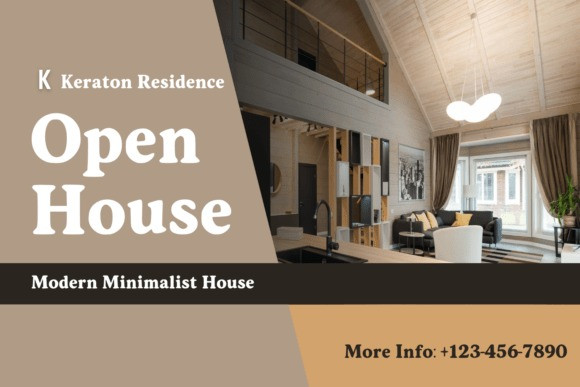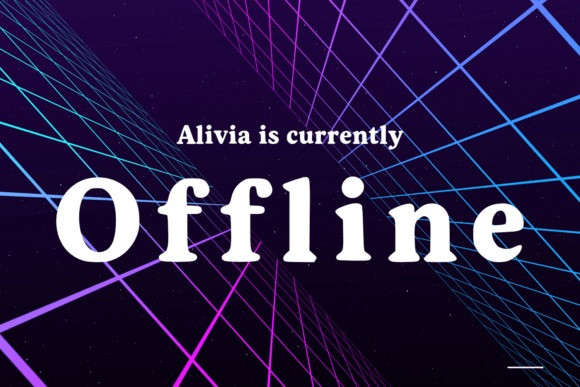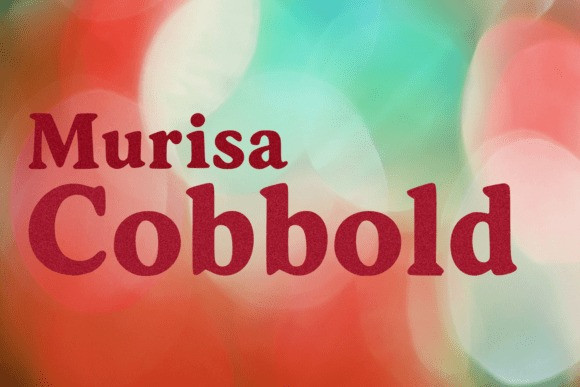
Murisa Cobbold Font
Murisa Cobbold Font, a serif typeface that commands attention without raising its voice. Designed for creators who demand more than beauty—this font delivers presence, precision, and poetic balance in every glyph.
Intelligent Design Each character is sculpted with meticulous care, blending classical proportions with modern finesse. The subtle tension between sharp serifs and graceful curves creates a rhythm that feels both editorial and exclusive.
Multilingual Mastery Murisa Cobbold speaks the language of refinement—across borders. With full support for Eastern European scripts, it’s ready to headline global campaigns, luxury packaging, and high-end publications.
Versatile Sophistication Whether you’re crafting a brand identity, designing a book cover, or elevating your product presentation, Murisa Cobbold adapts with quiet confidence. It’s not just a font—it’s a signature.